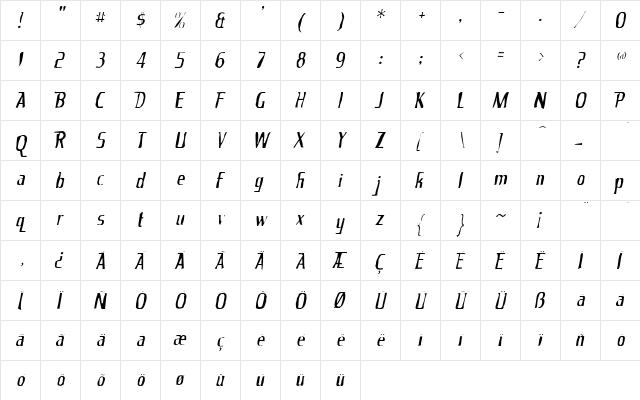
King Richard Gaunt Regular
Design Context for King Richard Gaunt Typeface
King Richard Gaunt is a composed and adaptable typeface that performs quietly and consistently across a wide range of design contexts.